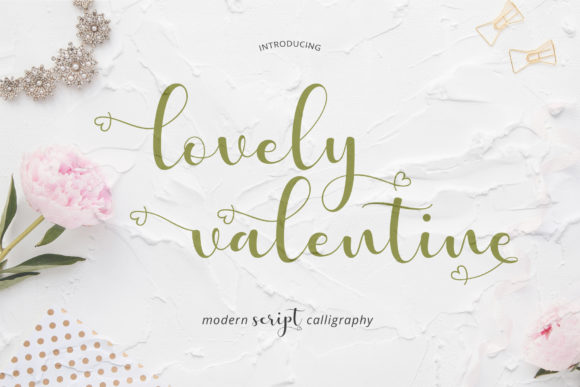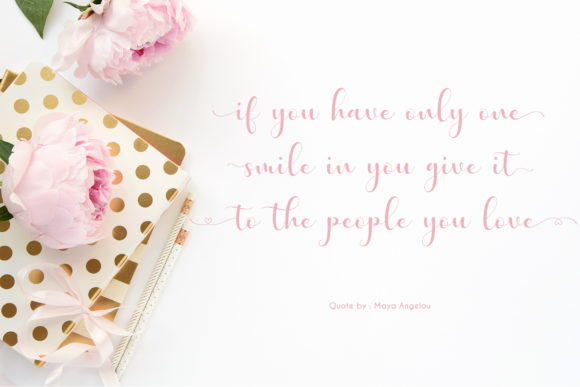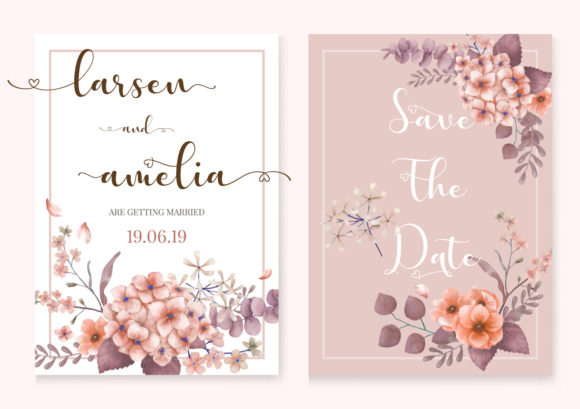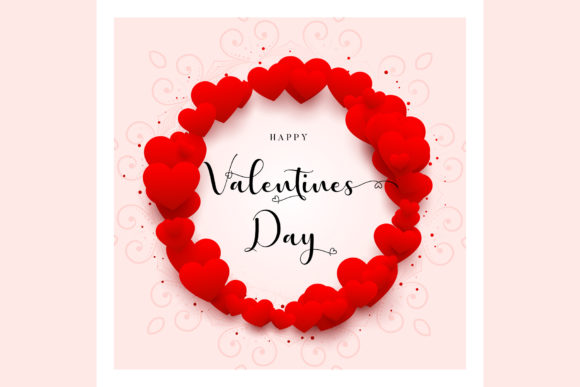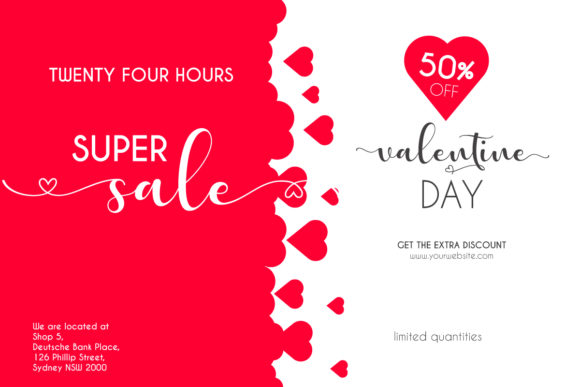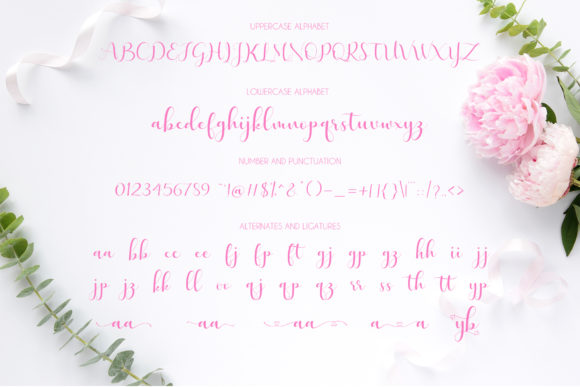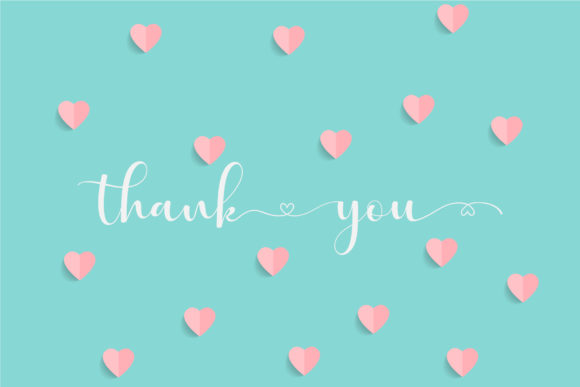
The Lovely Valentine is an unique blend of a classic and modern font. It has an imperfect style with dancing letters.
It’s perfect for wedding invites, events, invitations, escort cards, table numbers, header menus, display’s, logos, slider blogs, custom addresses, stamps, packaging, greeting cards, and much more!